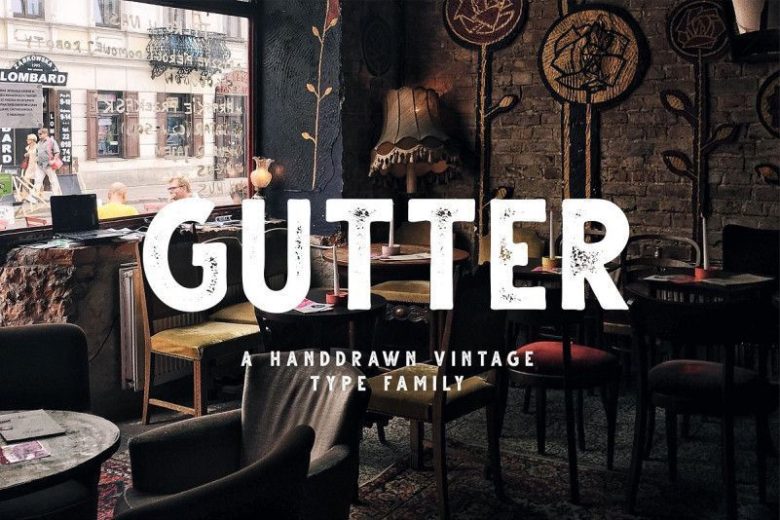
Gutter Handdrawn Sans Font Family
Hi Font Lover! This is a new vintage display sans serif type family. It’s simple, yet quite strong and robust in its confident approach.
Introducing Gutter font. It’s designed and shared by Dikas Studio. Gutter is a Handdrawn sans serif typeface, they have rough and vintage character.Gutter comes with 4 style regular, italic, rust, rust italic.
Perfect for logos, badges, typography and any vintage design needs.